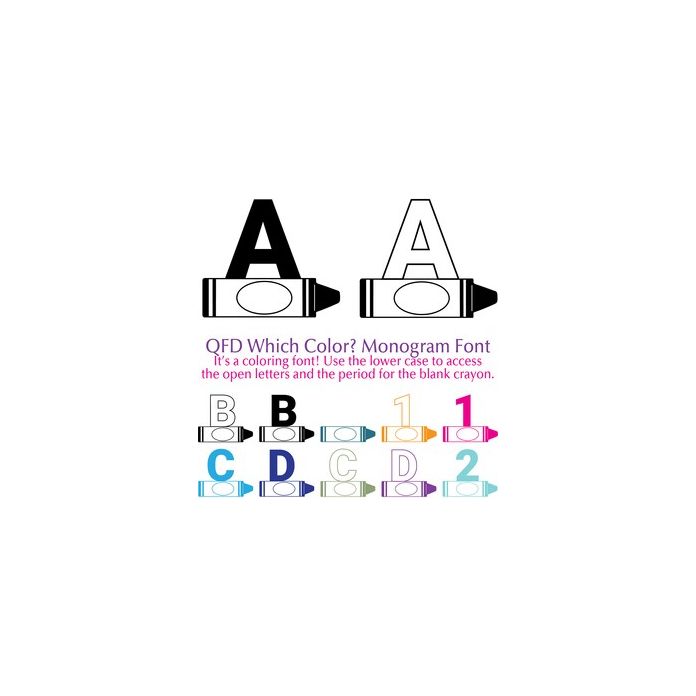
It's a font to print and color! Use the lower case to access the open letters and the period to access the blank element. Perfect for gift tags, cards, pillows, invitations, wall art, t-shirts, mugs and anything else you can think of. Combine this fun font with the other QFD Monogram fonts! See our detailed monograms tutorial by clicking the Instructions button. If you have any questions, please feel free to contact me!